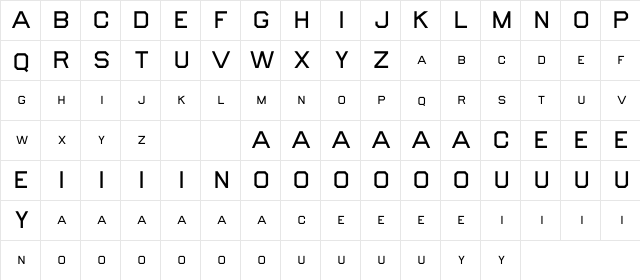
BlissBucket Regular
| Designer | Ryan Miglinczy |
Design Context for BlissBucket Typeface
BlissBucket is a composed and adaptable typeface that performs quietly and consistently across a wide range of design contexts.